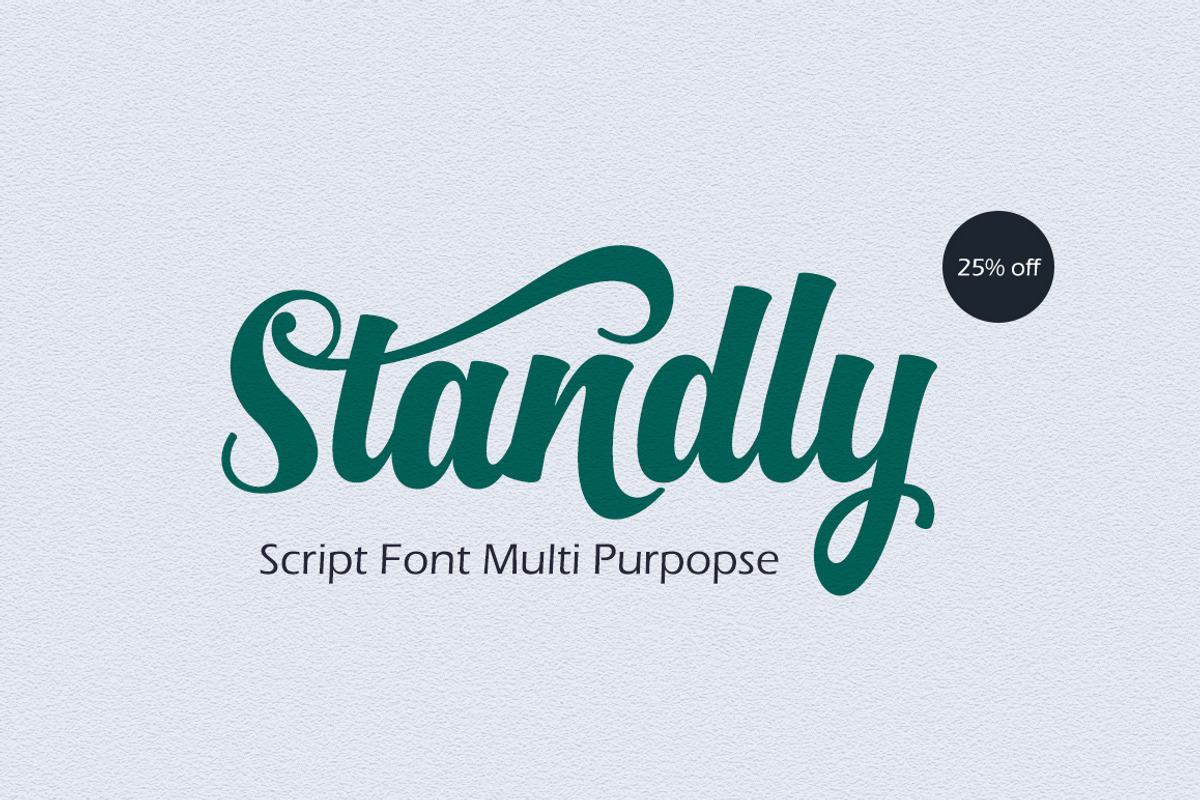
Standly Font Free Download is a bold and stylish script typeface with a hand-lettered feel, perfect for designs that need a personal yet powerful touch. With its dynamic strokes and modern brush style, Standly is ideal for logos, branding, apparel, social media posts, and product packaging.
This font combines casual elegance with expressive energy, making it suitable for both playful and professional applications. Whether you're crafting a streetwear label, an eye-catching headline, or a motivational quote graphic, Standly delivers character and flair.